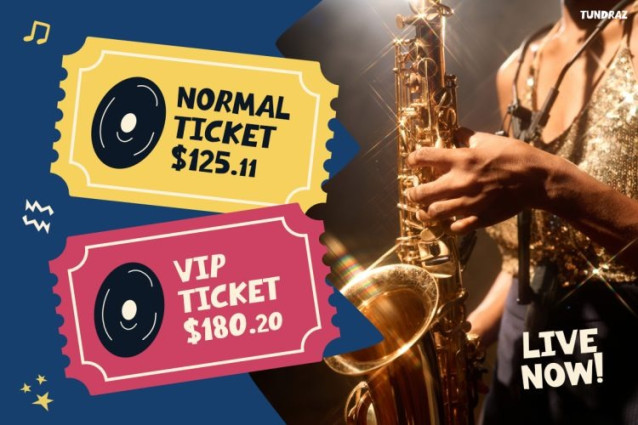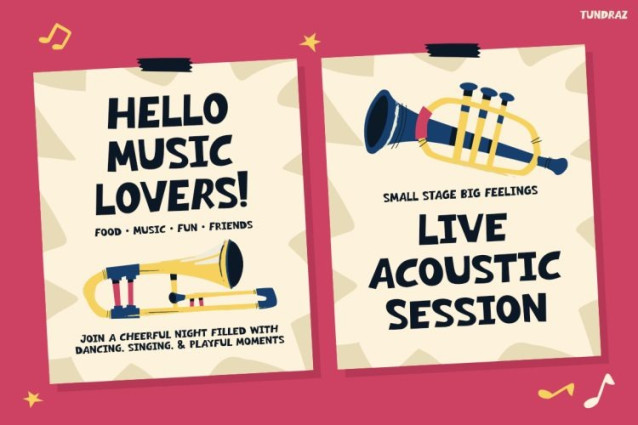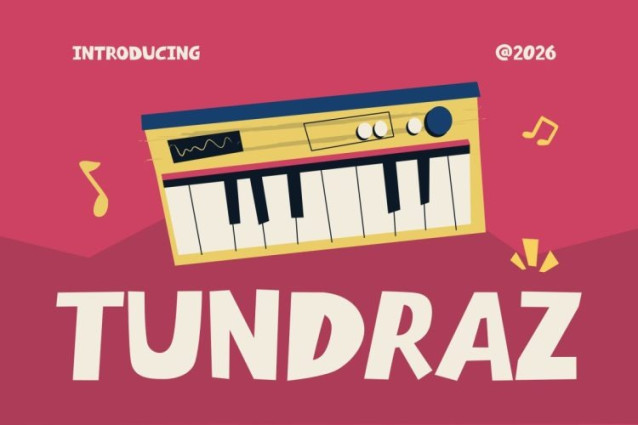
Tundraz Font
Tundraz Font a bold ALL CAPS design inspired by retro music culture, colorful festival posters, and energetic youth branding. Furthermore, the font features thick playful letterforms with a strong handcrafted feel, creating a look that is both nostalgic and fresh. Because of its chunky uppercase style, Tundraz instantly captures attention and delivers maximum visual impact. In addition, the fun geometric structure keeps headlines clear and readable, even from a distance. As a result, every design feels louder, brighter, and more engaging.
Moreover, Tundraz combines retro charm with modern creativity, making it perfect for projects that need excitement and personality. Whether you are designing event promotions, music-themed graphics, product packaging, or social media content, this font helps create a fun and memorable experience. Therefore, Tundraz is ideal for brands and designers who want typography that feels upbeat, playful, and full of life.